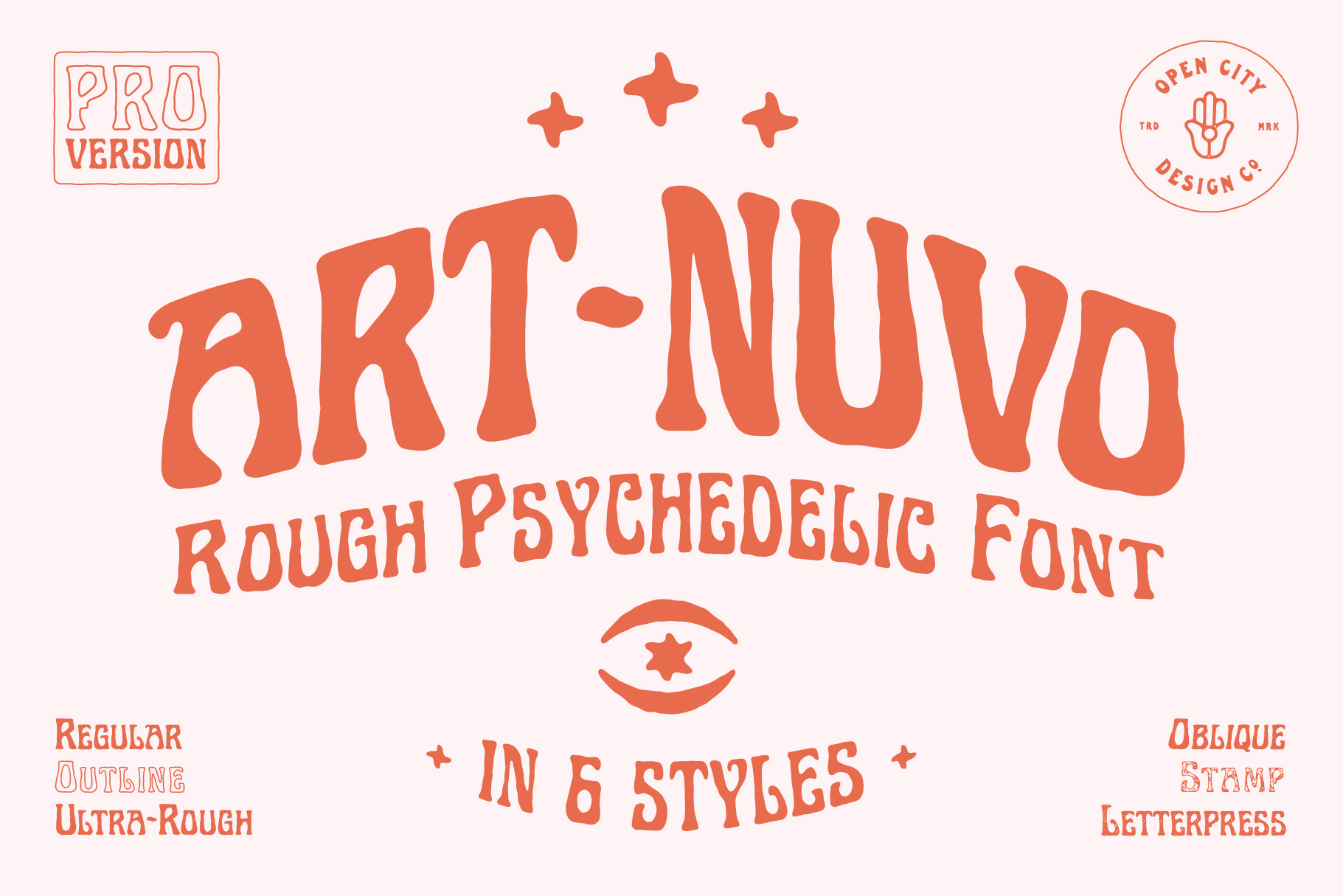
Art-Nuvo - Rough Psychedelic Font
Art-Nuvo is a hand drawn psychedelic font family that comes in 6 carefully crafted styles. It is great for music artwork and trippy/experimental themes. Enjoy!